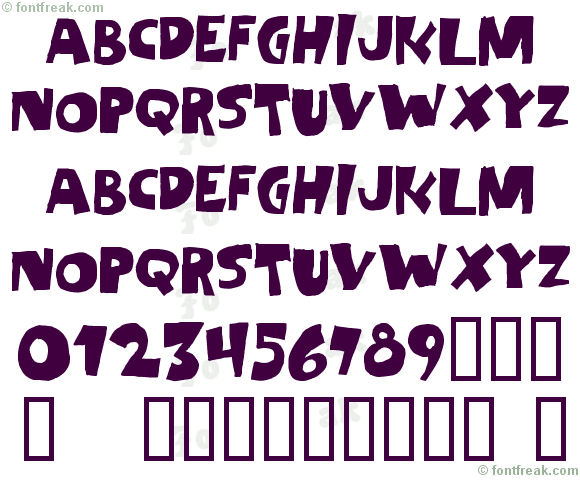
fayuca
Fayuca, designed by Grafito Design, is a captivating display font that embodies a unique blend of playful and artistic flair. With its handwritten characteristics, this font showcases irregular stroke weights that evoke a sense of spontaneity and creativity. The contrasting thicknesses create a dynamic visual rhythm, while the slightly uneven spacing adds to its organic feel. Fayuca features decorative elements that are reminiscent of hand-drawn typography, making it ideal for projects that require a personal touch.
This font shines in various use cases, particularly in creative and expressive contexts. It is perfect for wedding invitations, giving a charming and informal vibe that resonates with couples seeking a unique presentation. Additionally, fayuca is an excellent choice for movie posters, as its bold and distinctive style can capture attention and convey the film's essence. Small business owners will find it useful for branding elements, such as logos and promotional materials, where a friendly and approachable image is desired. Restaurant menus can also benefit from fayuca, as its artistic flair can enhance the dining experience and reflect the establishment's personality.
Targeted at graphic designers, small business owners, and content creators, fayuca offers an accessible way to infuse creativity into various projects. The freeware license makes it even more appealing, allowing users to incorporate this striking typeface without financial constraints.
What truly sets the fayuca font apart is its ability to convey emotion and personality through its distinctive design. Whether used in print or digital media, fayuca stands out with its lively character, making it an excellent choice for anyone looking to elevate their creative projects. For those interested, a fayuca font free download is readily available, inviting everyone to explore its potential.